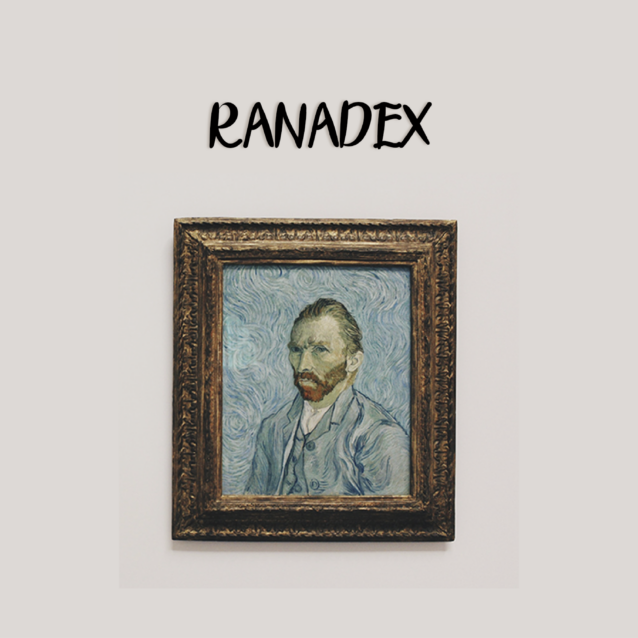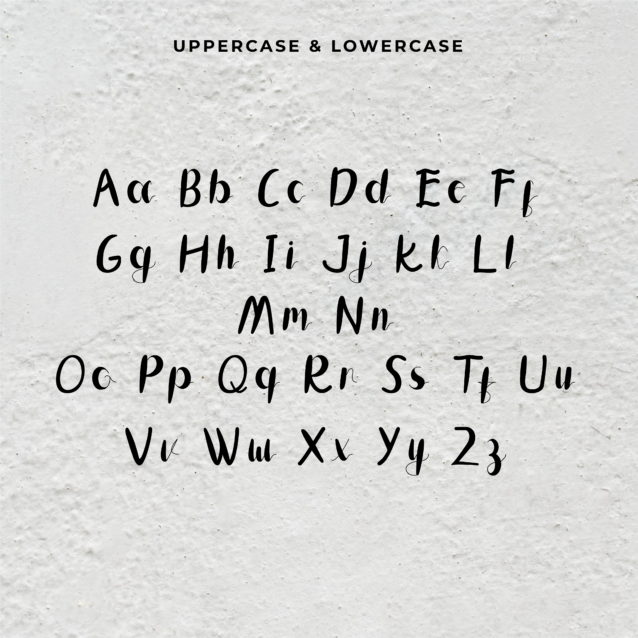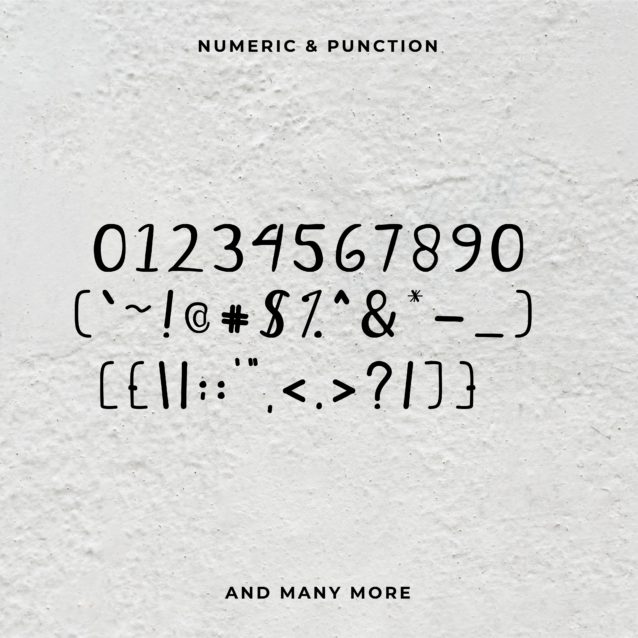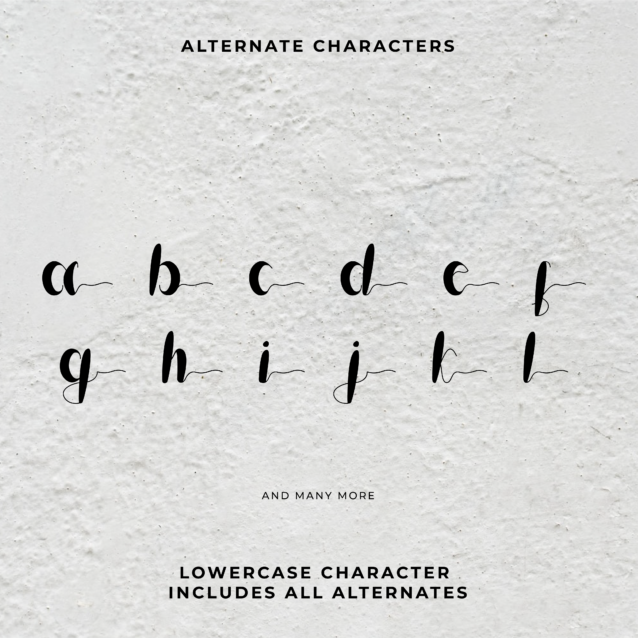
Saganta Script Font is a captivating handwritten typeface meticulously crafted to infuse warmth and personality into your design projects. Whether you’re curating a magazine, clothing design, composing posters, or crafting websites, particularly when it comes to headlines and titles, our font is your creative muse.
– Set Characters Uppercase & Lowercase
– Set Numeric & Punction
– Foreign Char’s
– Ligature & Alternate